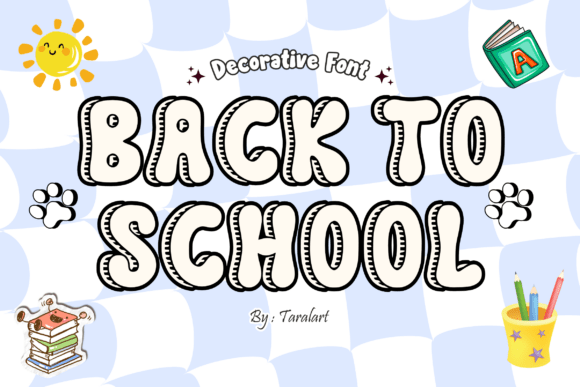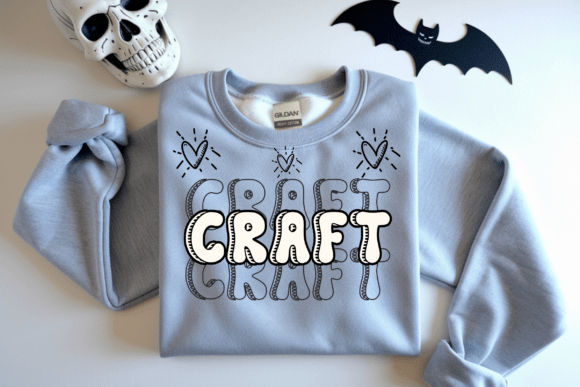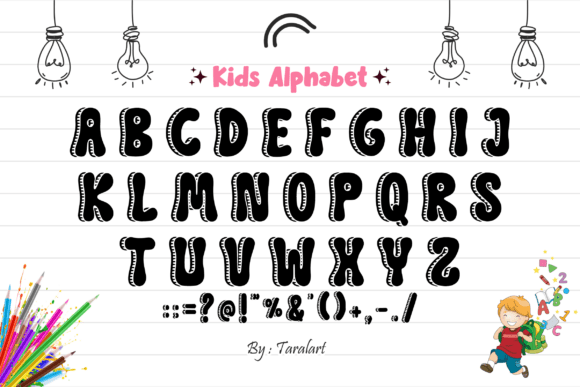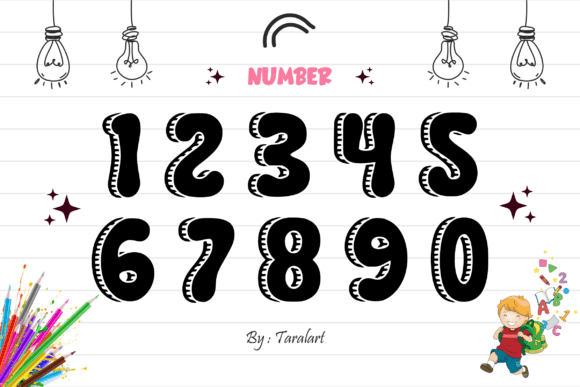
Introducing Comicstyle Regular Font: Unleash the Playfulness in Your Designs
Are you looking for a font that bursts with energy and playfulness? Do you want to evoke the hand-drawn essence of classic cartoons and school-age storytelling in your designs? Look no further than Comicstyle Regular Font! This delightful decorative font is designed to bring a touch of whimsy and fun to your projects, making it perfect for a wide range of applications.
The Unique Characteristics of Comicstyle Regular Font
Comicstyle Regular Font is a one-of-a-kind font that boasts a unique set of characteristics that set it apart from other fonts. Each letterform is thick, bubbly, and slightly irregular, with a soft, rounded structure that enhances its childlike charm. The font features bold black outlines that give it a comic-book flair, while the optional pastel fills create a colorful, friendly look.
One of the standout features of Comicstyle Regular Font is the stitched inner detailing. Each character features short, arching lines that mimic sewing or texture marks, adding depth and personality to the font. This attention to detail gives the font a tactile, hand-drawn feel that’s sure to delight designers and crafters alike.
Design Features and Benefits
Comicstyle Regular Font has been designed with a range of features that make it perfect for a wide range of applications. The letters are designed with consistent width and height, yet maintain enough quirky individuality to feel casual and approachable. This makes it ideal for use in:
- Back-to-school themes and educational materials
- Children’s books and storytelling
- Classroom posters and flyers
- Playful branding and packaging
- Educational apps and games
- Event flyers and invitations
Whether you’re a designer, crafter, or educator, Comicstyle Regular Font is the perfect choice for anyone looking to add a touch of playfulness and creativity to their projects.
Bringing Warmth and Enthusiasm to Your Designs
Comicstyle Regular Font is more than just a font – it’s a way to bring warmth and enthusiasm to your designs. The font’s expressive design encourages creativity and playfulness, making it perfect for projects that require a personal touch. With Comicstyle Regular Font, you can:
- Create engaging and interactive educational materials
- Design eye-catching posters and flyers that grab attention
- Develop playful and memorable branding and packaging
- Build educational apps and games that kids will love
Why Choose Comicstyle Regular Font?
So why choose Comicstyle Regular Font over other fonts? Here are just a few reasons:
- Unique and playful design that’s sure to stand out
- High-quality, vector-based design for crisp and clear text
- Wide range of applications, from education to entertainment
- Easy to use and integrate into your designs
- Constantly updated and improved to ensure the best possible experience
In conclusion, Comicstyle Regular Font is a unique and playful font that’s perfect for designers, crafters, and educators looking to add a touch of whimsy and fun to their projects. With its bold black outlines, stitched inner detailing, and optional pastel fills, this font is sure to bring warmth and enthusiasm to any message. So why not give it a try and see what amazing creations you can come up with?